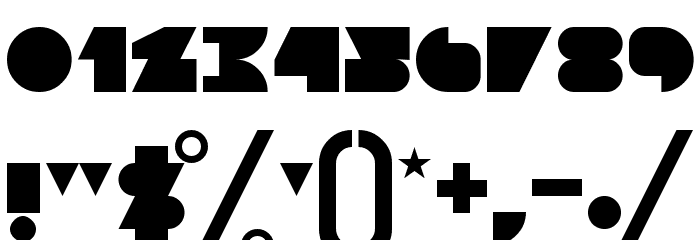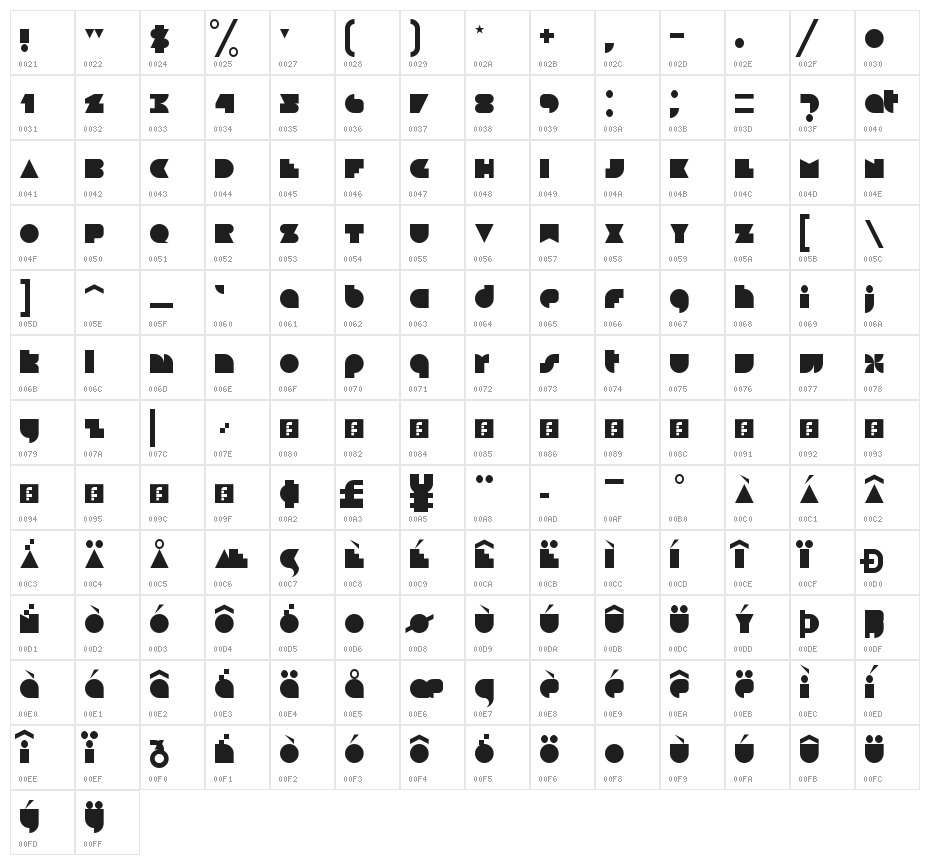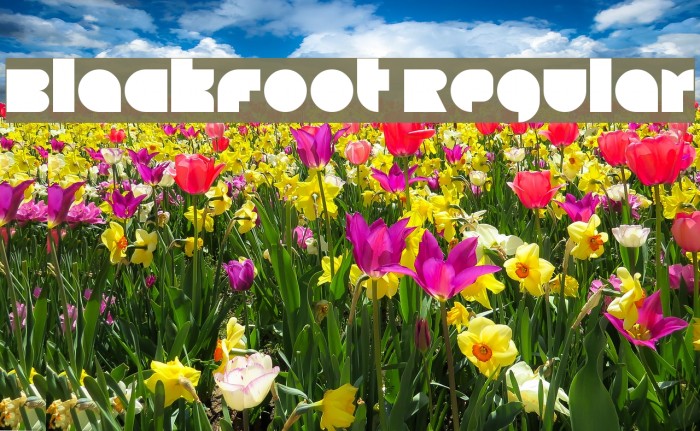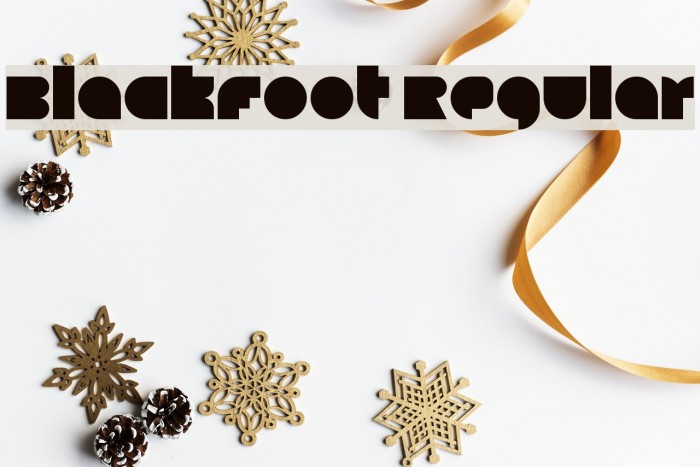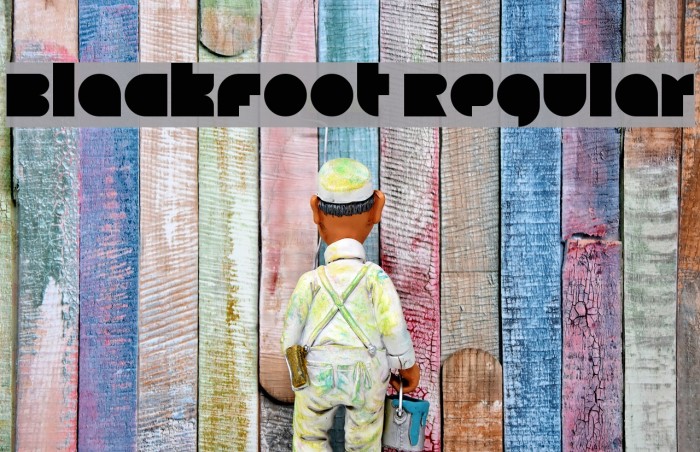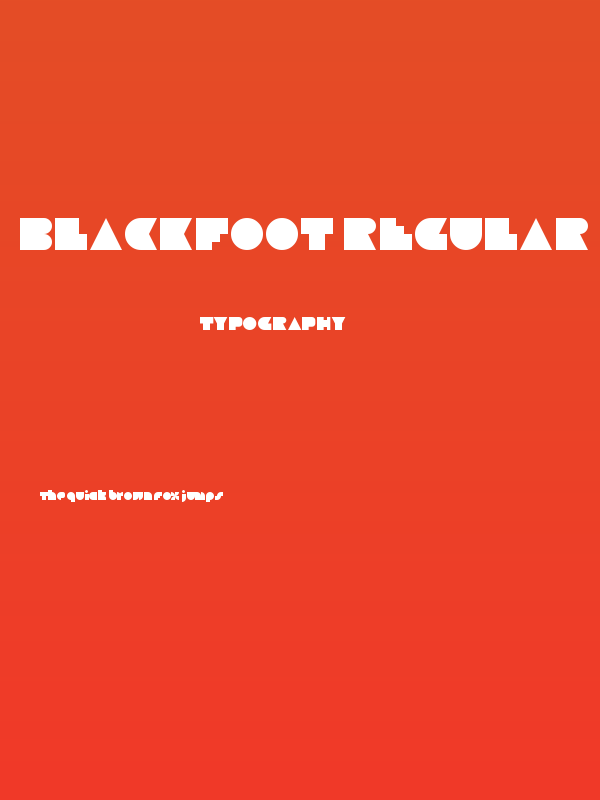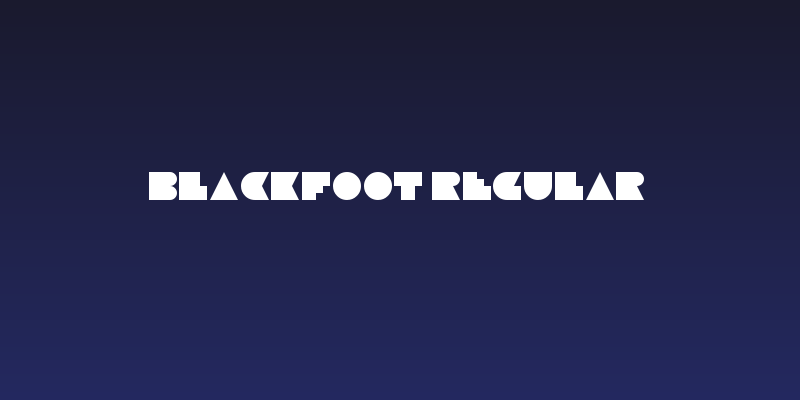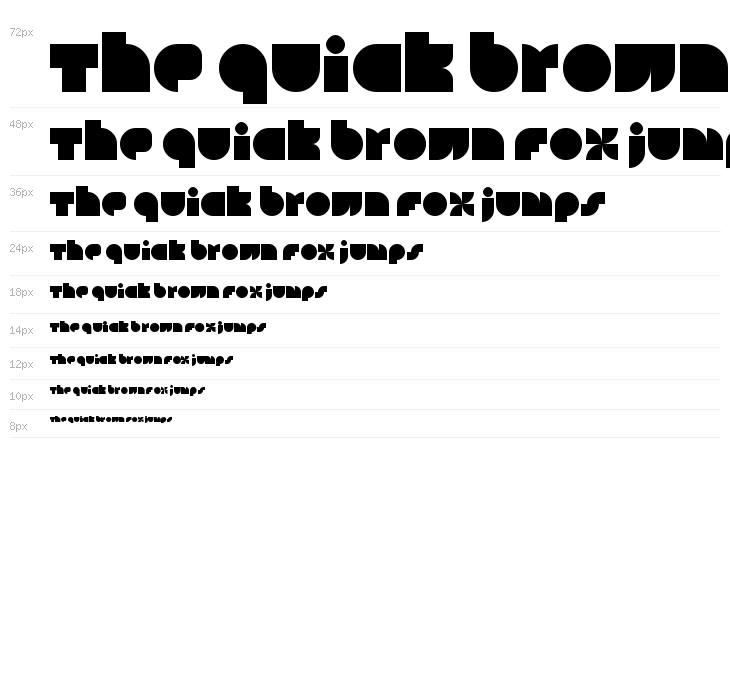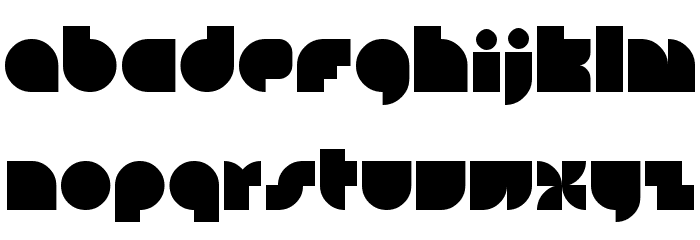
Blackfoot Regular Font
Blackfoot Regular Description
This font features a bold and geometric design, characterized by its strong, angular shapes and solid forms. The uppercase letters are particularly striking, with a blocky, almost futuristic appearance that commands attention. The lowercase letters maintain the same boldness, with rounded edges that soften the overall look slightly. Numbers and special characters follow the same design principles, ensuring consistency across all glyphs. The font's unique style makes it ideal for projects that require a modern and impactful visual presence.